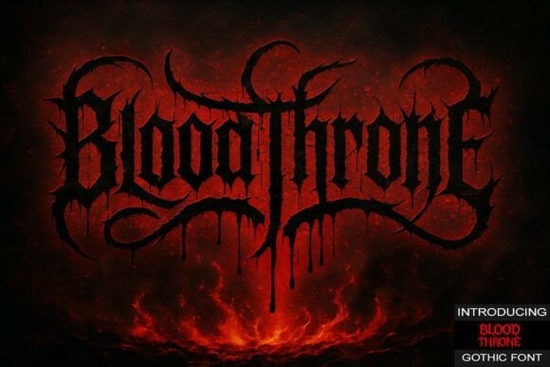
If you've been searching for a typeface that feels raw, dark, and completely unapologetic, the Blood Throne Font might be exactly what you need. This Gothic-style display font pulls from the chaotic energy of street art and combines it with sharp blackletter details. Whether you're designing a logo, a t-shirt graphic, or social media content, it gives your work a bold, aggressive look that demands attention.
What Makes Blood Throne Different from Other Gothic Fonts?
Plenty of blackletter fonts lean heavily on tradition ornate curves, medieval shapes, and a formal tone. Blood Throne takes a different route. It keeps the heavy, angular structure of blackletter type but adds a gritty, modern edge. The result feels more like something you'd see on a punk album cover or a streetwear brand than a church wall.
That distinction matters if you're designing for audiences who want something rebellious. The letterforms are aggressive without being unreadable, which is a balance many display fonts struggle to strike.
Who Should Use This Font?
This typeface works well for a range of creative projects:
- Print-on-demand sellers designing merchandise with dark, edgy themes
- Small businesses in alternative fashion, music, or nightlife branding
- Graphic designers creating posters, album covers, or event flyers
- Creative hobbyists who want personal projects to look distinctive
- Social media creators building a visual identity that stands out in a feed
It's not the right fit for body text or formal documents and that's fine. It's built for impact, not paragraphs.
How Does It Pair with Other Fonts?
Pairing a display typeface like Blood Throne with a cleaner font is usually the best approach. Use it for headlines or logos, then choose a simple sans-serif or serif for supporting text. This keeps your designs readable while still giving them that dark, commanding presence.
If you're exploring other options in this style, a typeface like Velthaven Black offers a similarly sharp blackletter look that works well alongside bold display choices. Mixing two blackletter styles in one design can get busy, though, so it's better to pick one as the star and let the other font play a supporting role.
Where Can You Use Blood Throne?
This font performs across a variety of digital and print applications:
- T-shirt designs especially for horror, metal, or streetwear themes
- Logo design for brands that want a dark, premium identity
- Album artwork the raw style fits music with an aggressive tone
- YouTube thumbnails and social posts bold lettering grabs clicks
- Stickers, posters, and packaging anything that benefits from a wild, edgy feel
Keep in mind that like most display fonts, it looks best at larger sizes. At small sizes, the detailed edges can lose clarity.
Tips for Getting the Most Out of This Font
- Use it at larger sizes the details are designed to be seen, not squeezed
- Limit it to headlines or logos avoid using it for paragraphs or long text
- Experiment with color red, white, and gold on dark backgrounds amplify the mood
- Test your spacing adjust letter spacing to fit your layout; tight tracking often works best
- Pair it wisely a clean secondary font keeps the overall design balanced
Blood Throne isn't trying to be subtle, and that's exactly the point. If your project needs a typeface that carries weight, attitude, and a bit of chaos, it's worth adding to your toolkit.